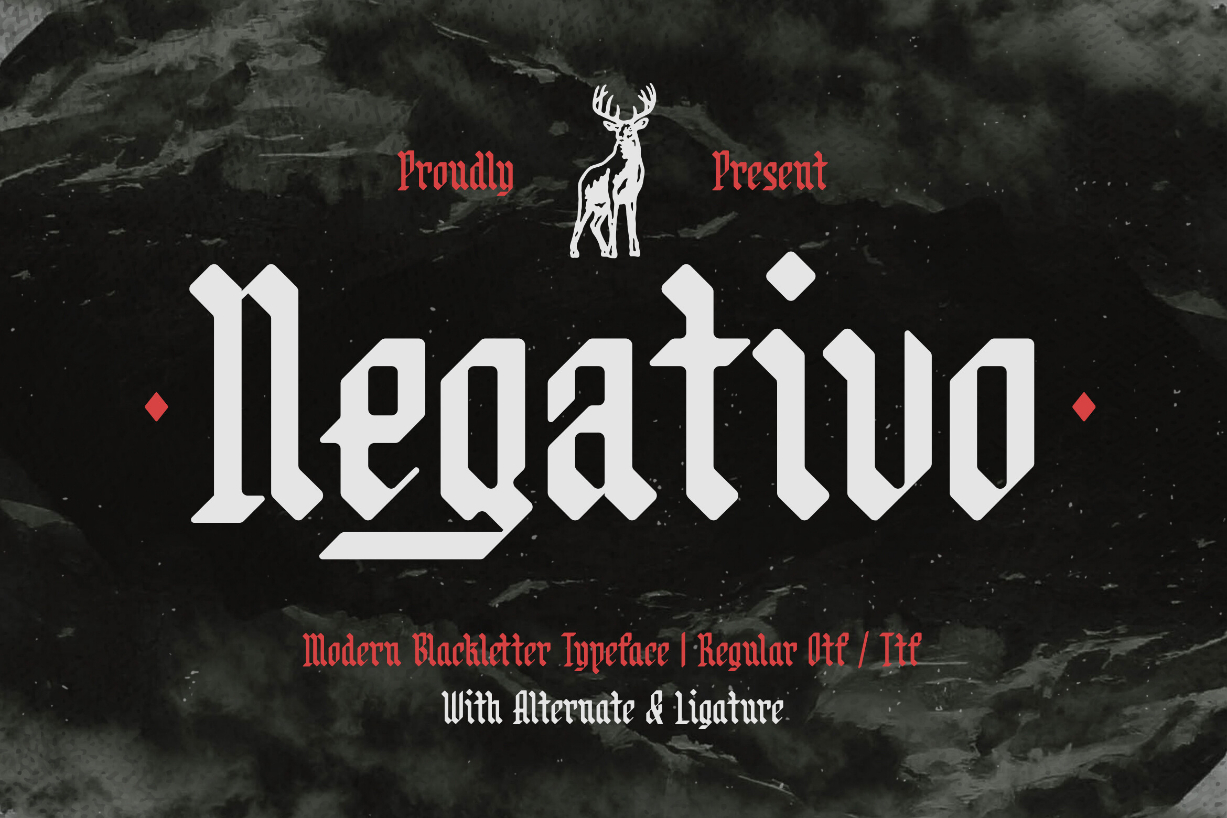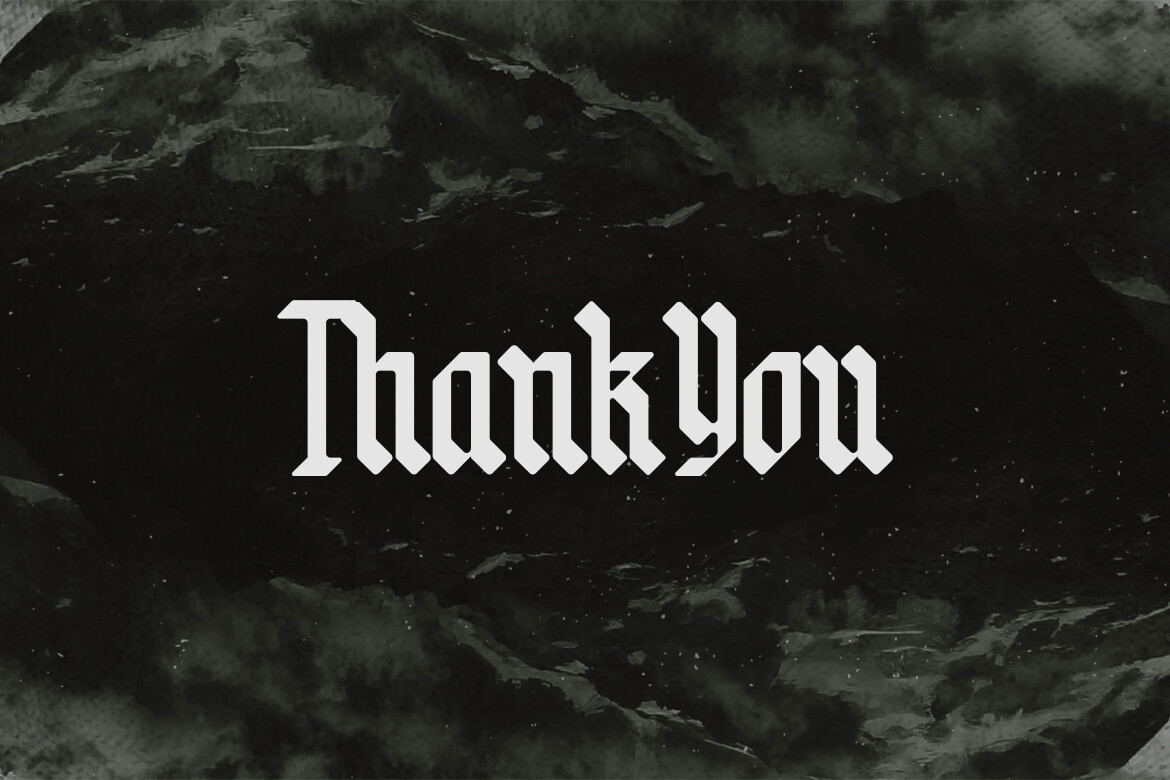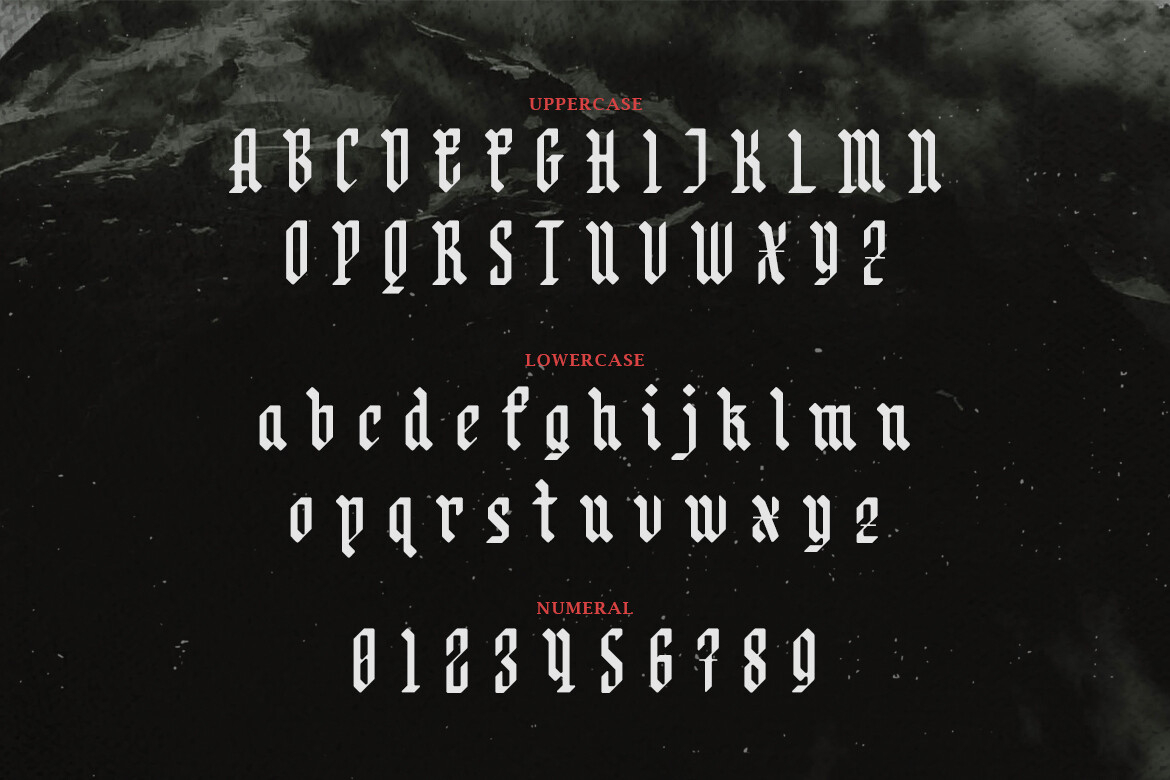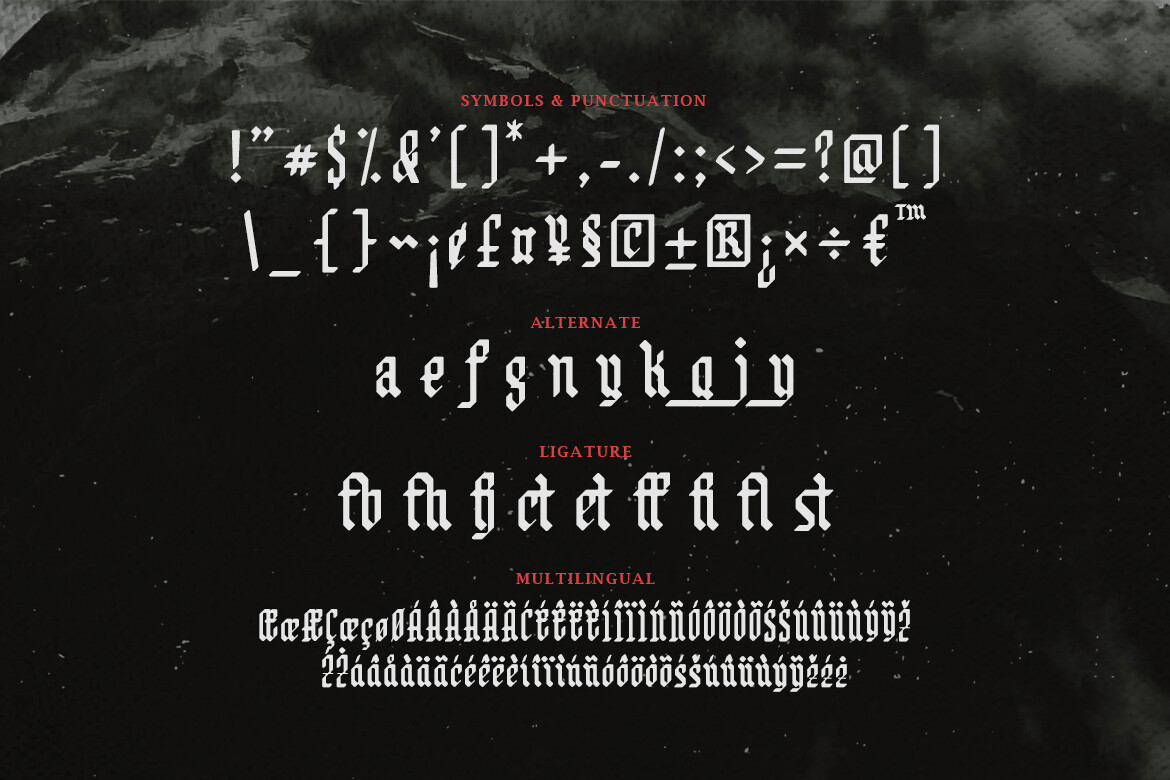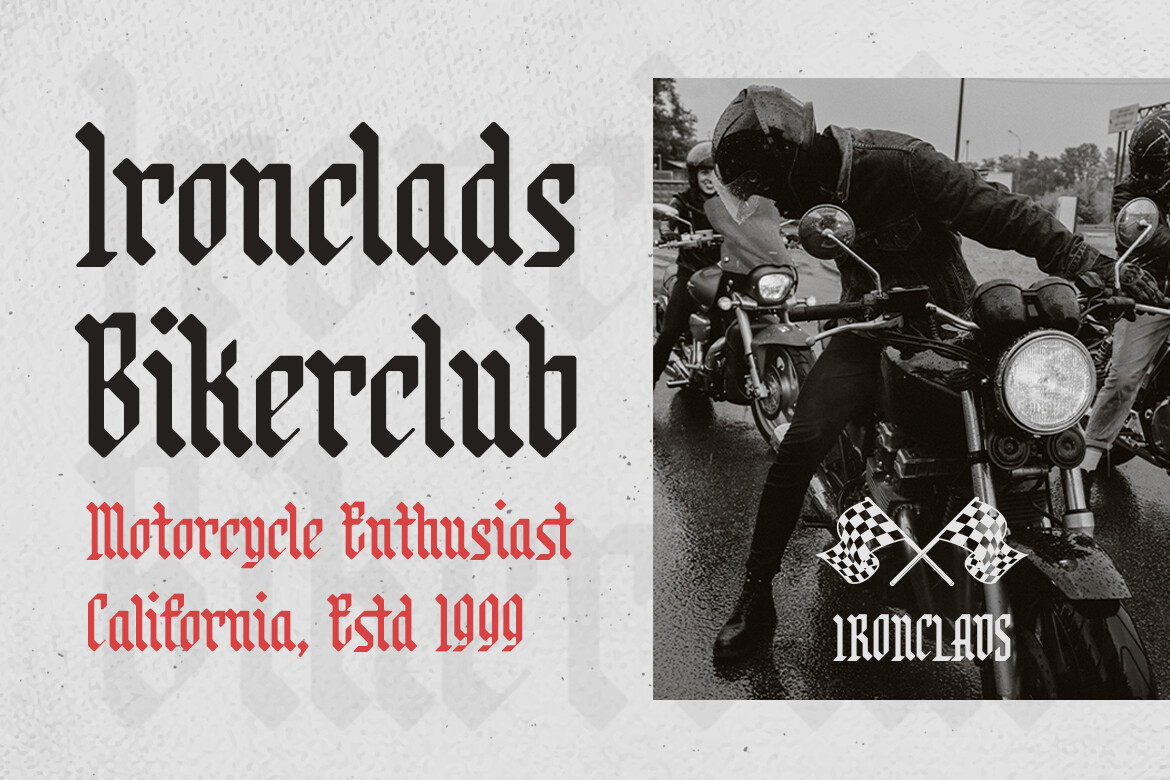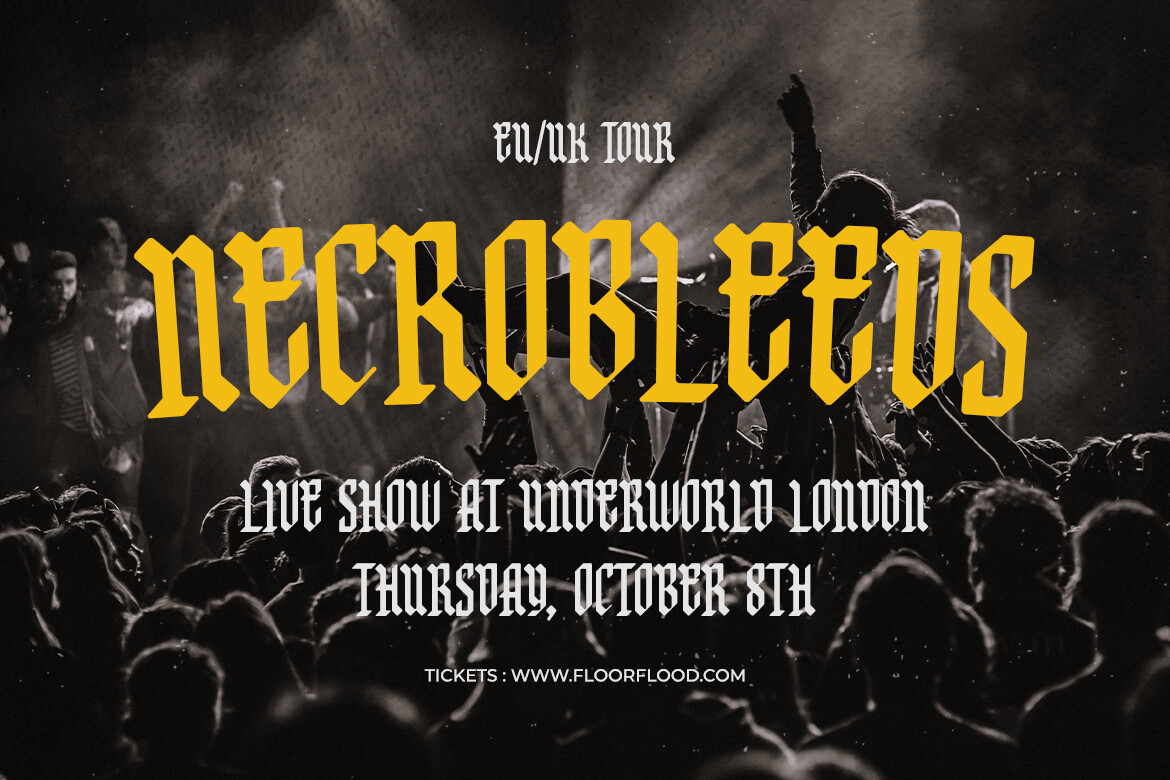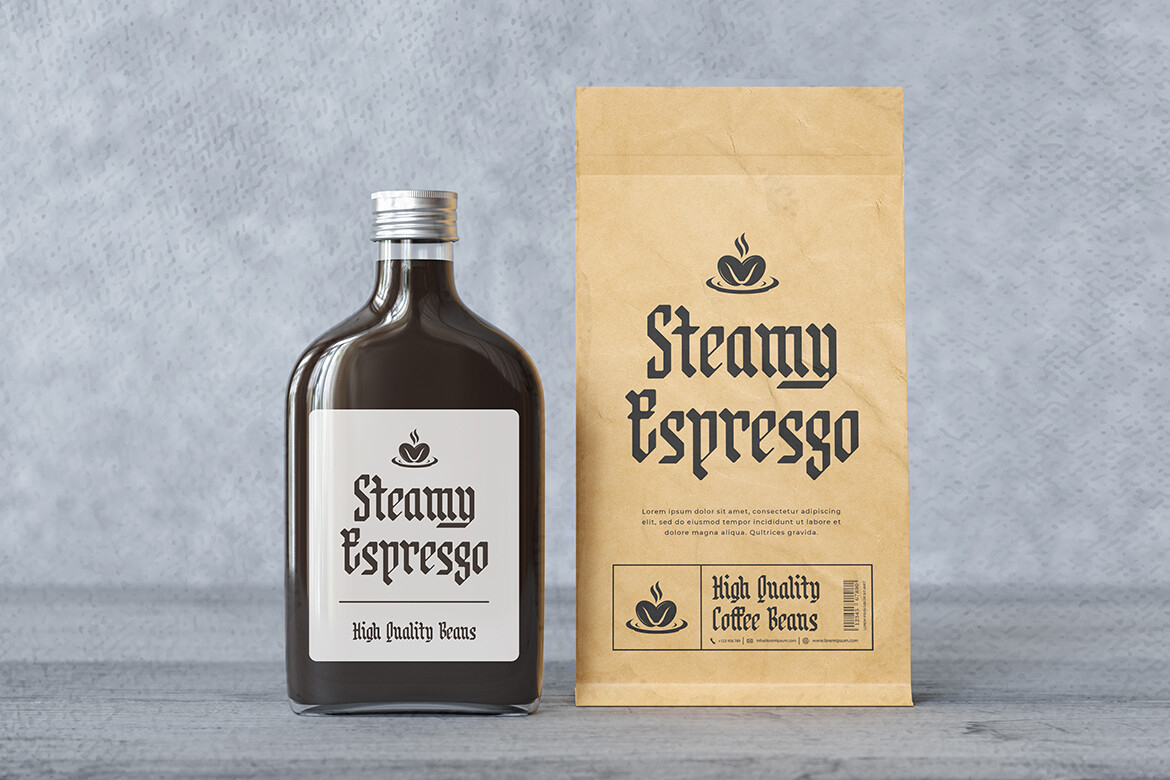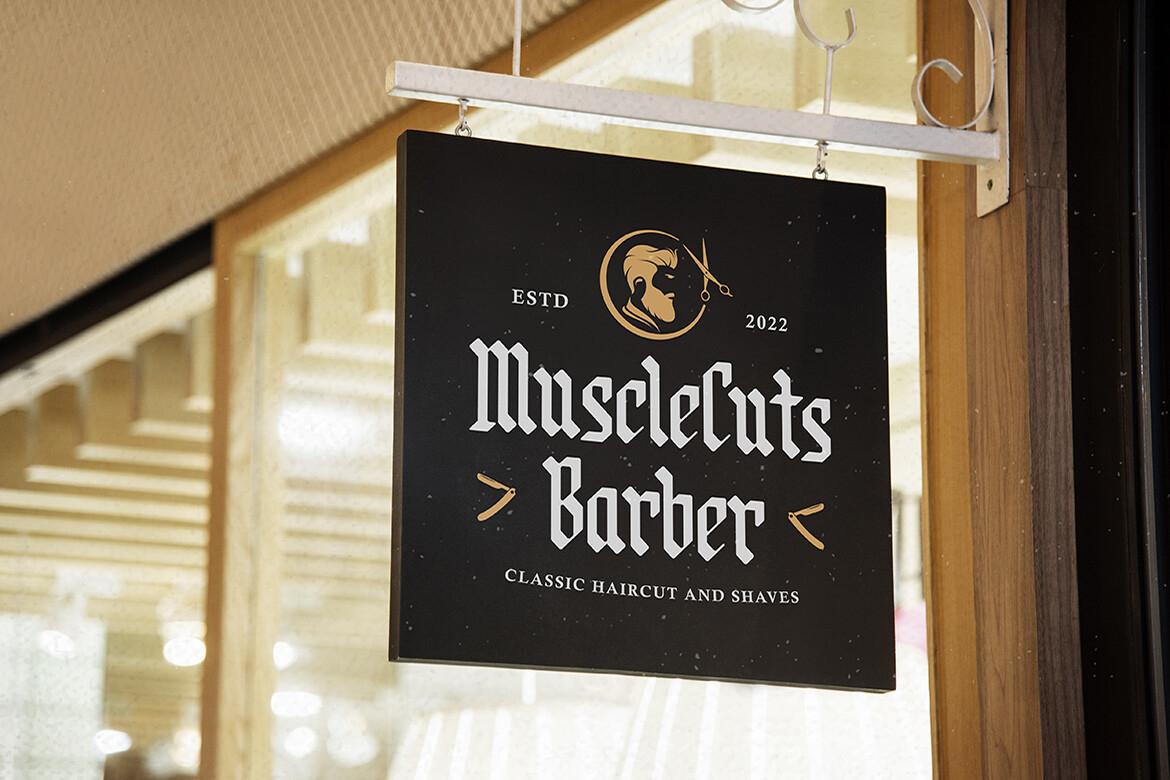
Negativo Font
About Negativo Font
Experience the bold fusion of tradition and modernity with “Negativo” – a modern blackletter typeface that exudes strength and sophistication. Embrace the versatility of “Negativo” as it seamlessly blends tradition with a modern sensibility. Whether you’re designing for fashion, music, or luxury sectors, this typeface will make a powerful statement with its bold and distinctive style.